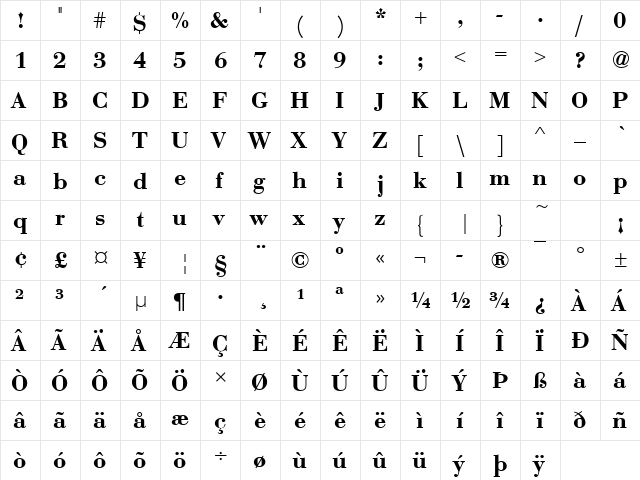
BodoniNo1URWTDemBol Regular Font Preview
BodoniNo1URWTDemBol Regular
Design Context for BodoniNo1URWTDemBol Typeface
BodoniNo1URWTDemBol is a composed and adaptable typeface that performs quietly and consistently across a wide range of design contexts.